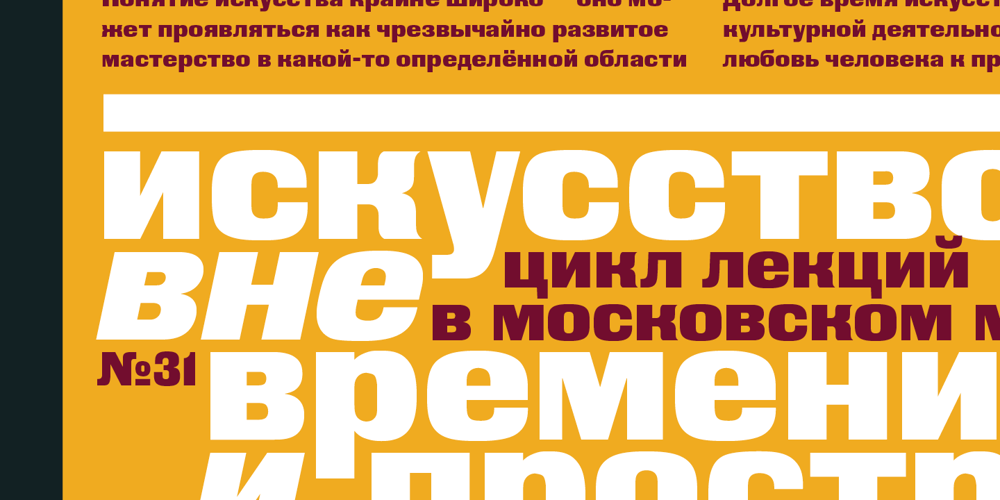
Black Grotesk Font Family was designed by Tagir Safayev and published by ParaType. Black Grotesk contains 2 styles and family package options. Designed at ParaType in 1997 by Tagir Safayev. Based on Gasetny Chorny (“Newspaper Black”), of Ossip Lehmann foundry, St.-Petersburg, 1874, and Kompakte Grotesk of Haas. An old-fashioned German sans serif “Grotesque”. For use in advertising and display typography.